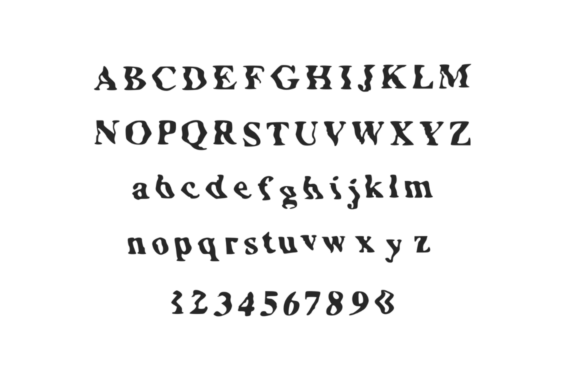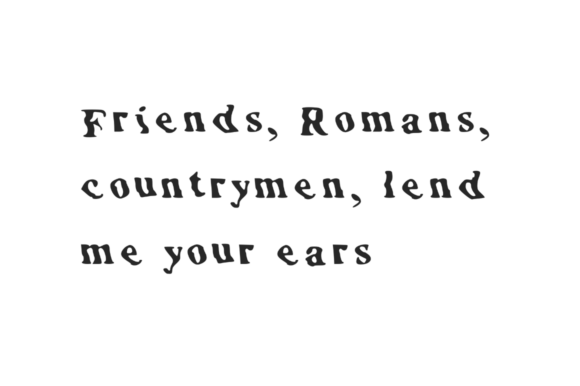
Introducing Glitch New Roman Regular: The Distorted Twist on a Classic Typeface
Are you tired of using the same old fonts in your designs? Do you want to add a touch of edginess and uniqueness to your projects? Look no further than Glitch New Roman Regular, the font that’s all glitched up and ready to make an impact on your next glitched project. With a twist on a classic typeface, this distorted font is perfect for hackers, web nerds, and glitch art lovers alike.
The Story Behind Glitch New Roman Regular
Glitch New Roman Regular is a font that’s been intentionally distorted to give it a glitchy, imperfect feel. The original New Roman typeface has been a staple of design for centuries, but with the rise of digital technology, designers are looking for new ways to express themselves. Glitch New Roman Regular takes the classic typeface and turns it on its head, creating a unique and eye-catching font that’s perfect for projects that require a bit of attitude.
What Makes Glitch New Roman Regular So Special?
So, what sets Glitch New Roman Regular apart from other fonts? Here are just a few features that make it an ideal choice for designers and crafters:
- Distorted, glitchy feel: The font’s distorted, glitchy feel gives it a unique and eye-catching appearance that’s perfect for projects that require a bit of edginess.
- Twist on a classic typeface: Glitch New Roman Regular takes the classic New Roman typeface and turns it on its head, creating a fresh and modern look.
- Perfect for hackers, web nerds, and glitch art lovers: The font’s glitchy feel makes it a natural fit for projects that require a bit of technical expertise or a love of glitch art.
How to Use Glitch New Roman Regular in Your Designs
Glitch New Roman Regular is a versatile font that can be used in a variety of design projects, from digital art to print design. Here are a few tips for incorporating the font into your work:
- Use it as a headline font: The font’s bold, distorted feel makes it perfect for use as a headline font, adding a touch of drama and impact to your designs.
- Mix it with other fonts: Glitch New Roman Regular can be paired with a variety of other fonts to create a unique and eye-catching look.
- Experiment with different colors and textures: The font’s glitchy feel lends itself well to experimentation with different colors and textures, so don’t be afraid to try new things.
Tips and Tricks for Getting the Most Out of Glitch New Roman Regular
Here are a few tips and tricks for getting the most out of Glitch New Roman Regular:
- Use it sparingly: While Glitch New Roman Regular is a bold and eye-catching font, it can be overwhelming if used too much. Use it sparingly to add impact to your designs.
- Pay attention to legibility: While the font’s distorted feel is part of its charm, it’s still important to make sure it’s legible. Experiment with different sizes and colors to find the right balance.
- Have fun: The most important thing is to have fun with Glitch New Roman Regular! Experiment with different designs and techniques to find the look that works best for you.
Glitch New Roman Regular is a unique and eye-catching font that’s perfect for designers and crafters looking to add a touch of edginess to their projects. With its distorted, glitchy feel and twist on a classic typeface, it’s an ideal choice for hackers, web nerds, and glitch art lovers alike. So why not give it a try and see what kind of impact it can make on your next glitched project?